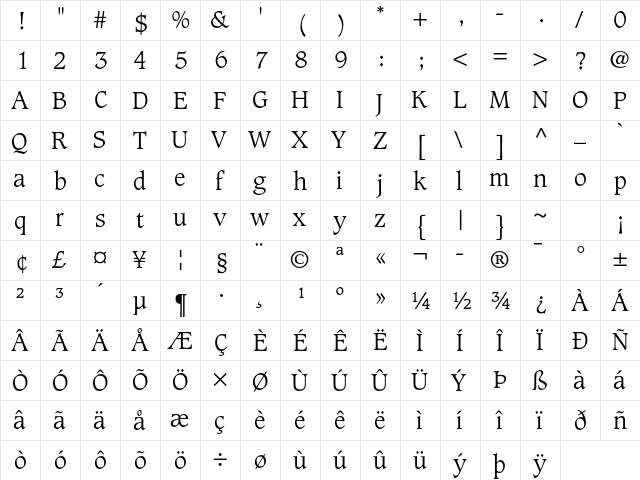
Caxton Std Light
| Designer | Leslie Usherwood |
Design Context for Caxton Std Typeface
Caxton Std takes a measured approach to typography — its balanced proportions and neutral character make it a reliable workhorse for both digital and print work. The delicate stroke weight brings airiness and refinement to layouts.